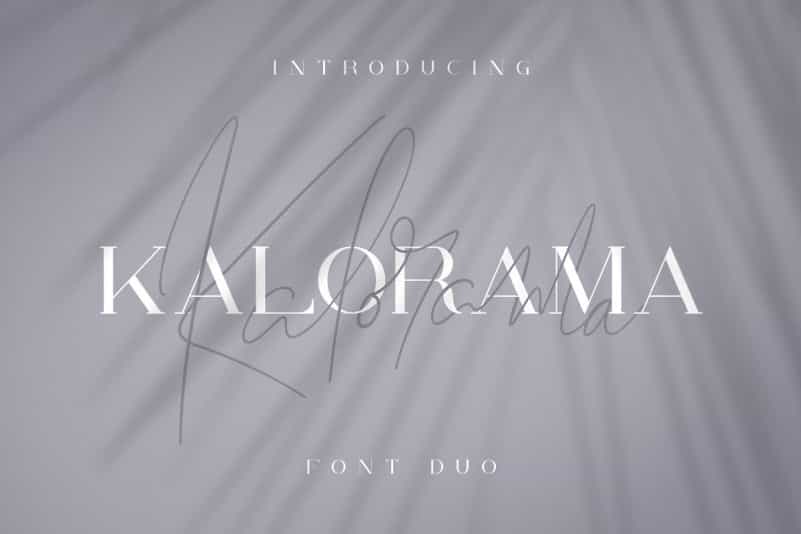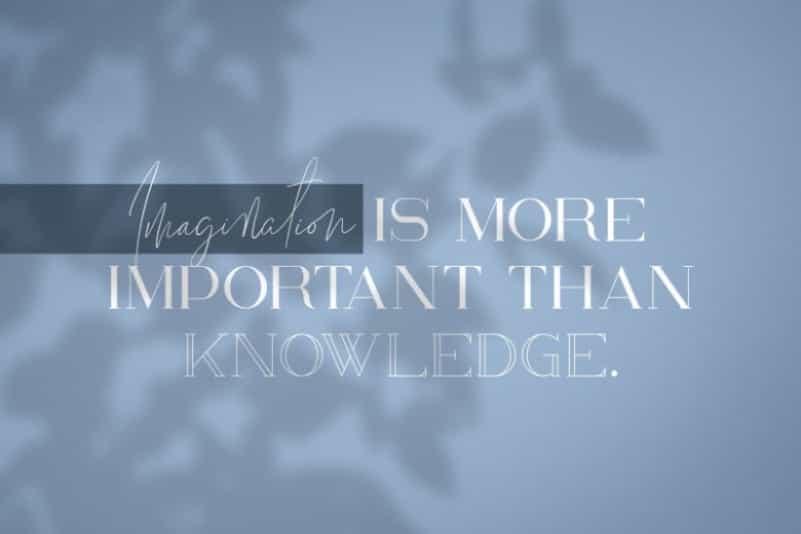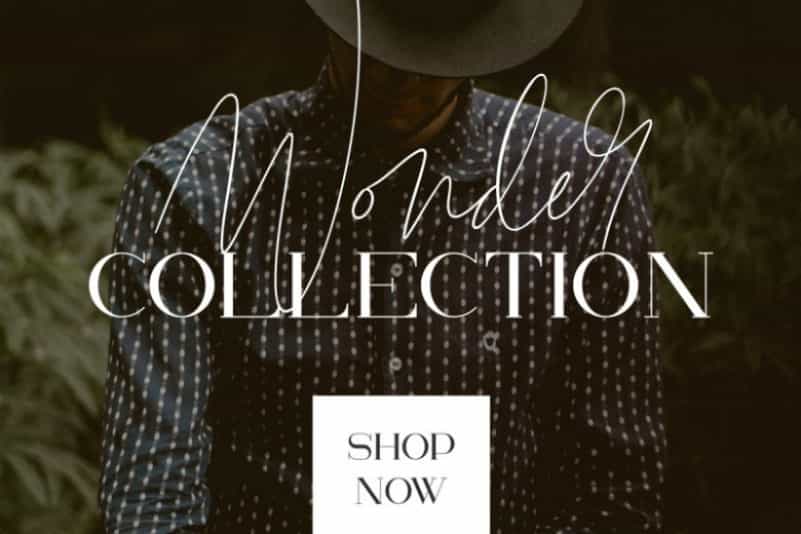
The Kalorama is a beautiful serif font of traditional design which has been endowed with the features of modern curves and cut-ins thereby making it one of the most memorable top fonts available in the market. This one is was designed by VPcreativeshop. It has clean and modern serip design with variation that include regular, outline type styles and scripts support, with ligatures and more than thirty languages.